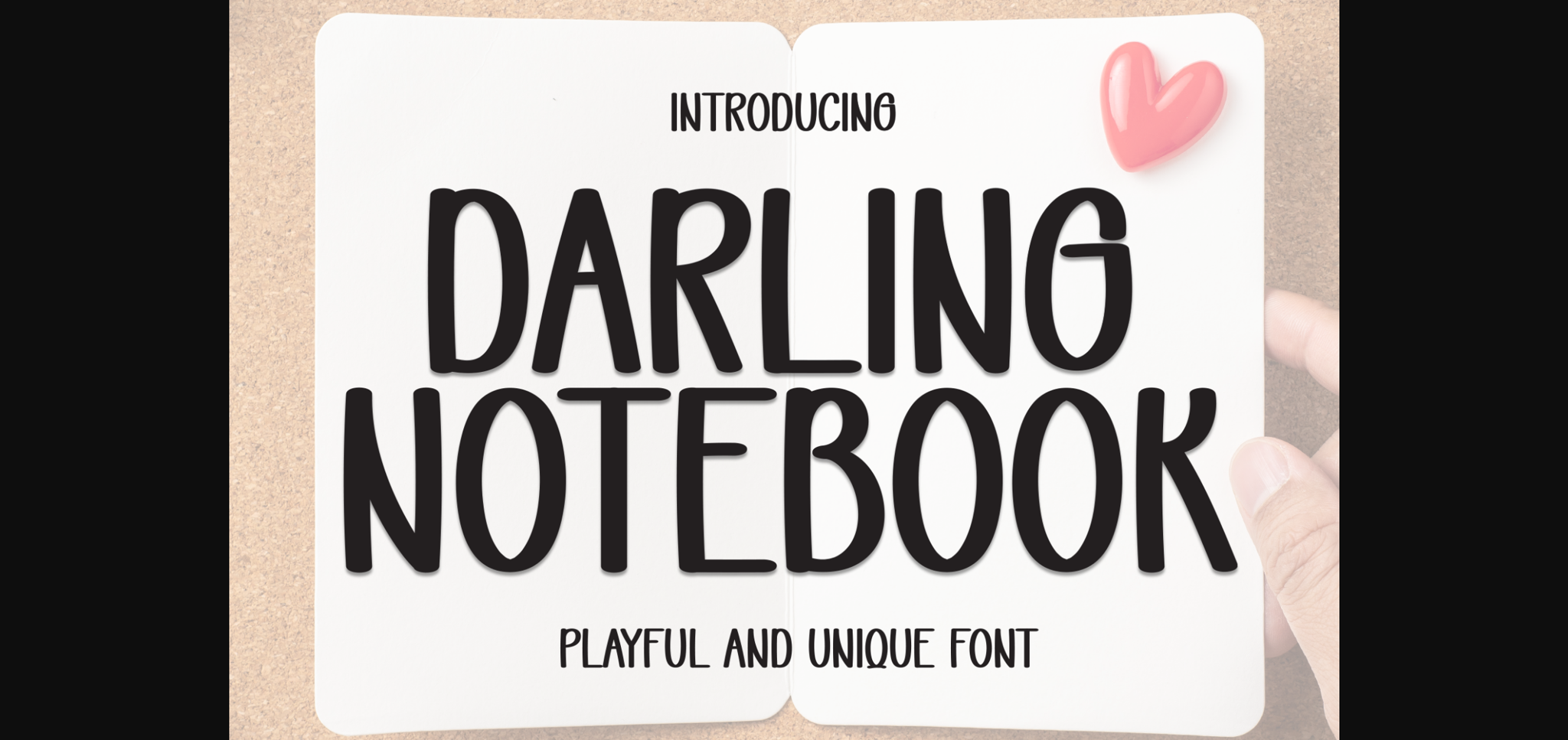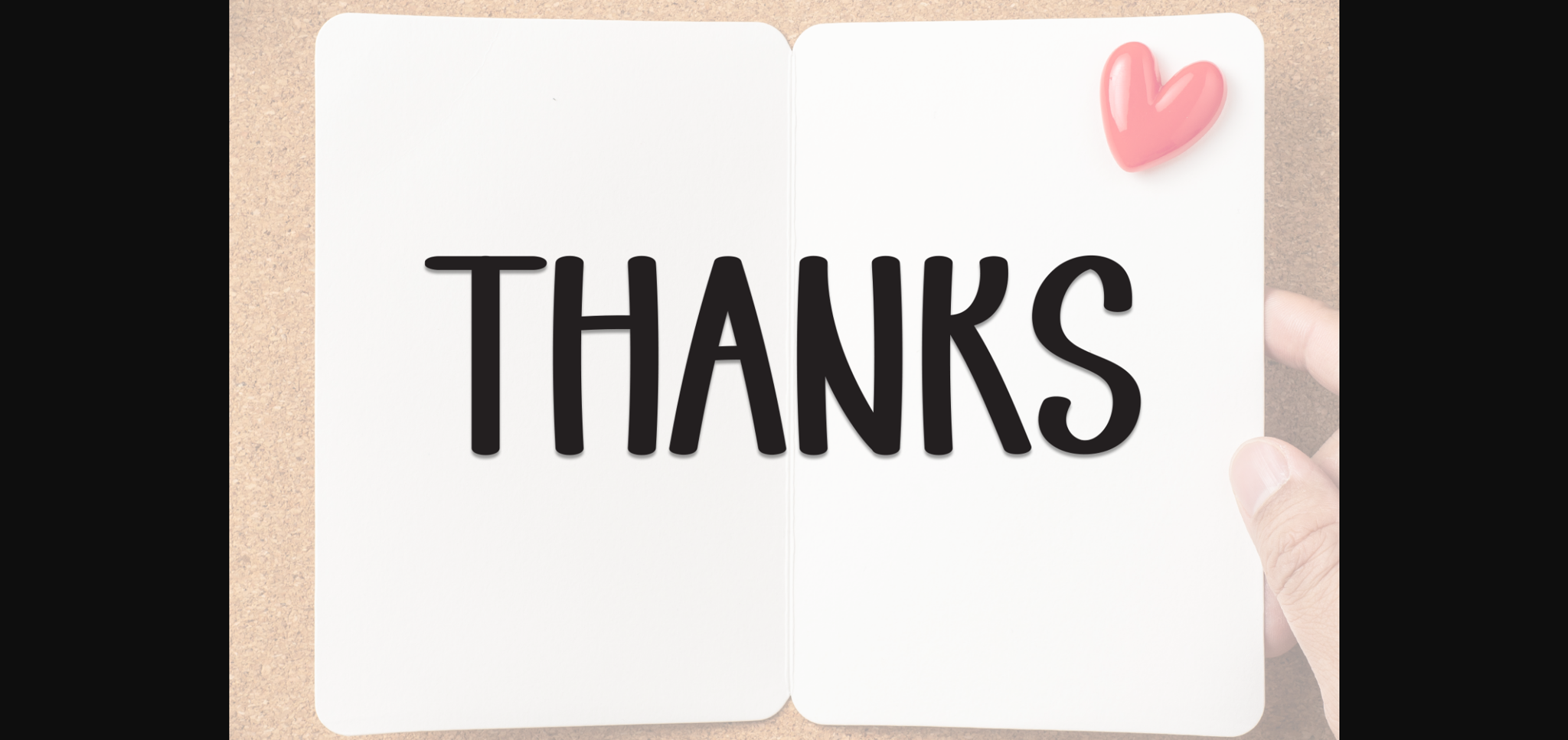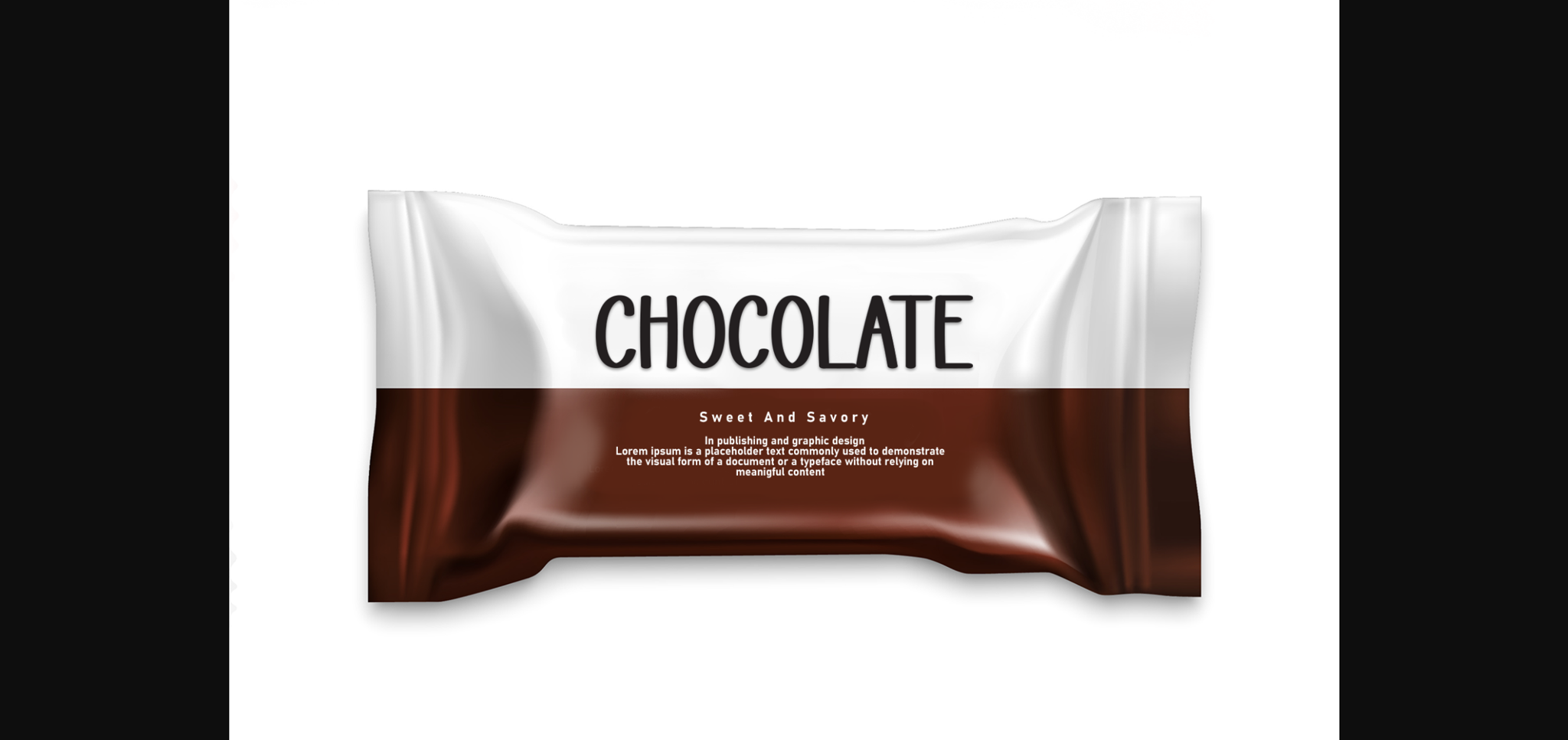
Darling Notebook Font
About Darling Notebook Font
Darling Notebook is a neat and casual sans-serif font that combines simplicity with a touch of warmth. With clean lines and balanced proportions, it exudes a friendly and approachable vibe. Perfect for various design projects, Darling Notebook brings a modern and versatile style to your typography repertoire.